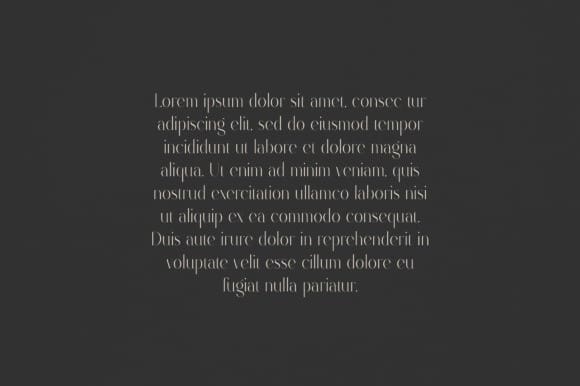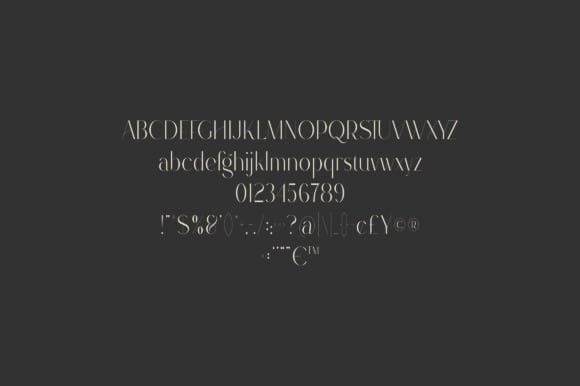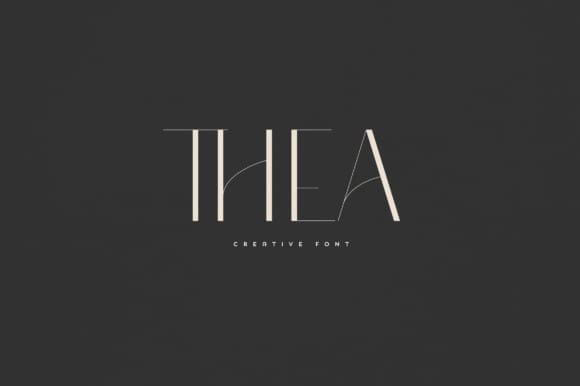
Thea Font
Thea Font is an elegant and versatile font that will make your typography truly unique! It will enchant every logo, branding, headline, or plain text!